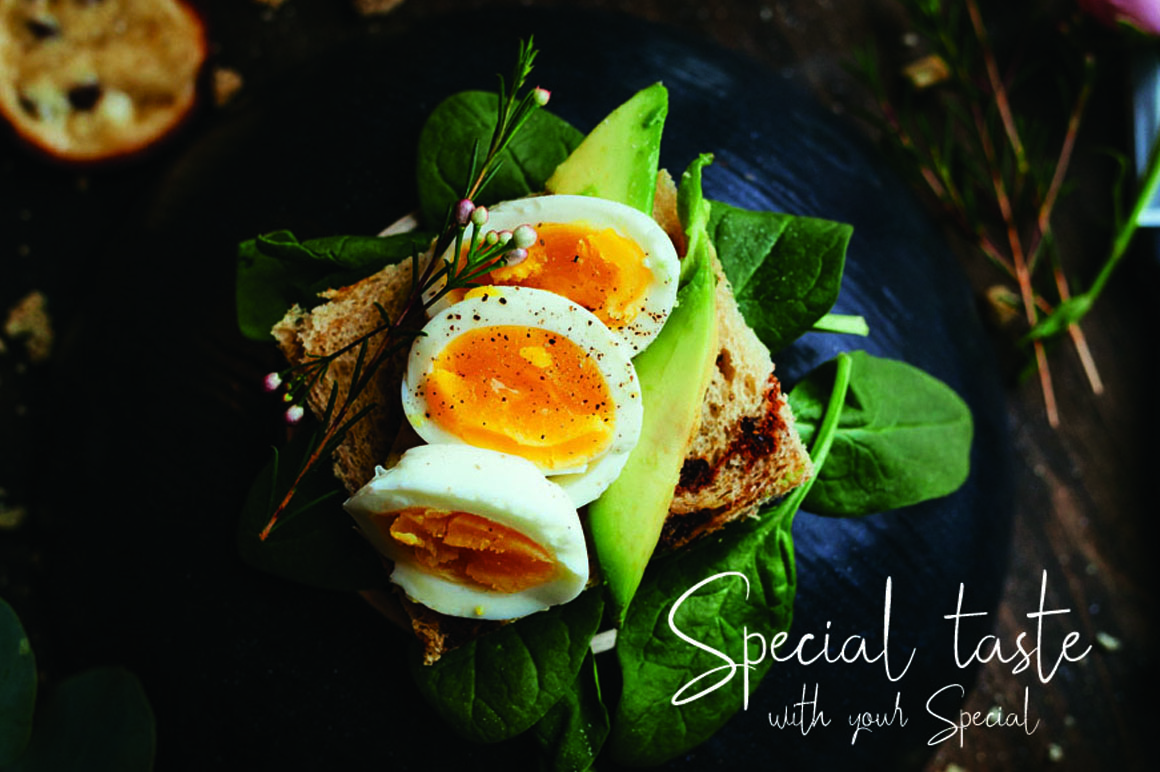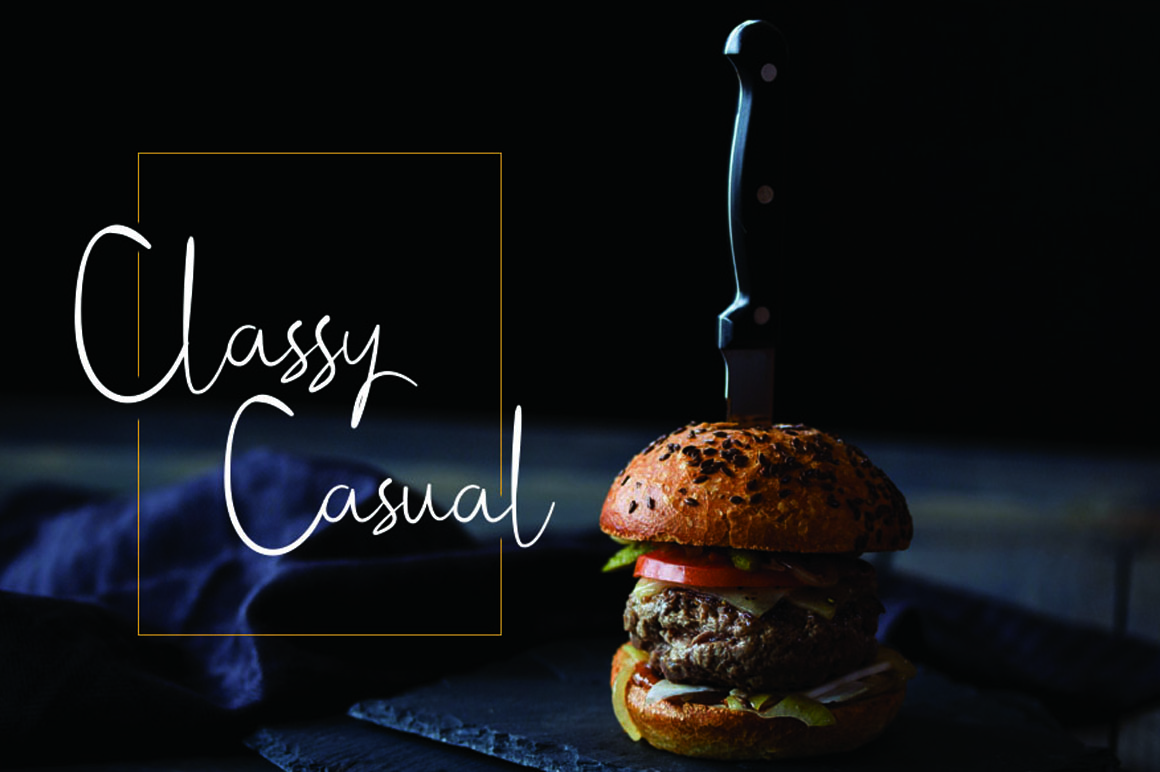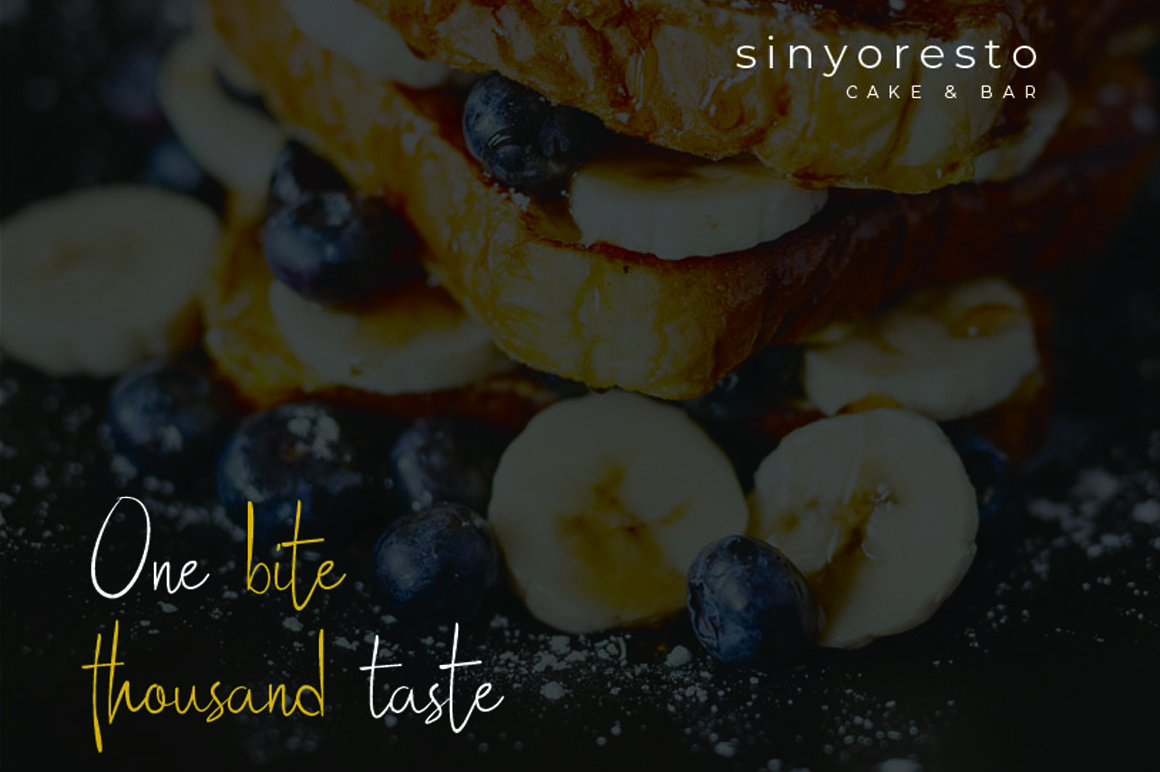
Saithik Free Font
Saithik Free Font is a stylish handwritten with signature style. This beautiful script font makes your latest art project a more elegant, neat, and modern look.